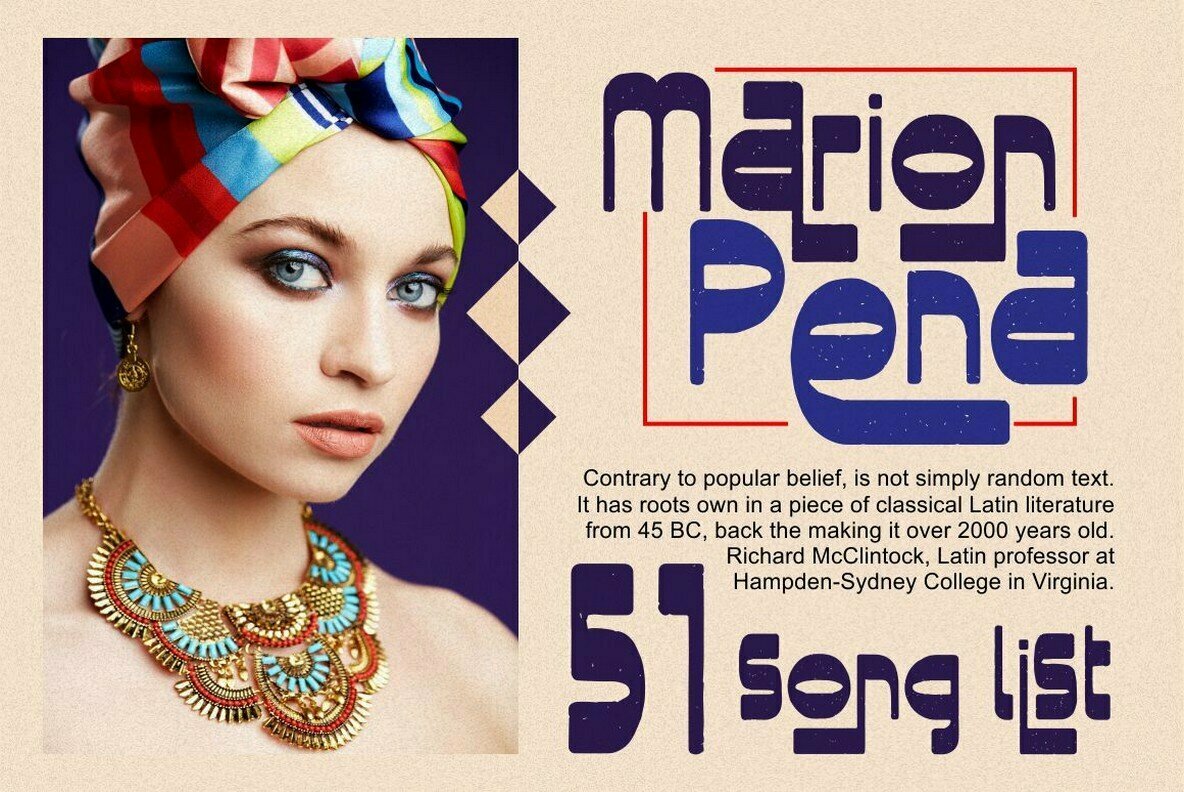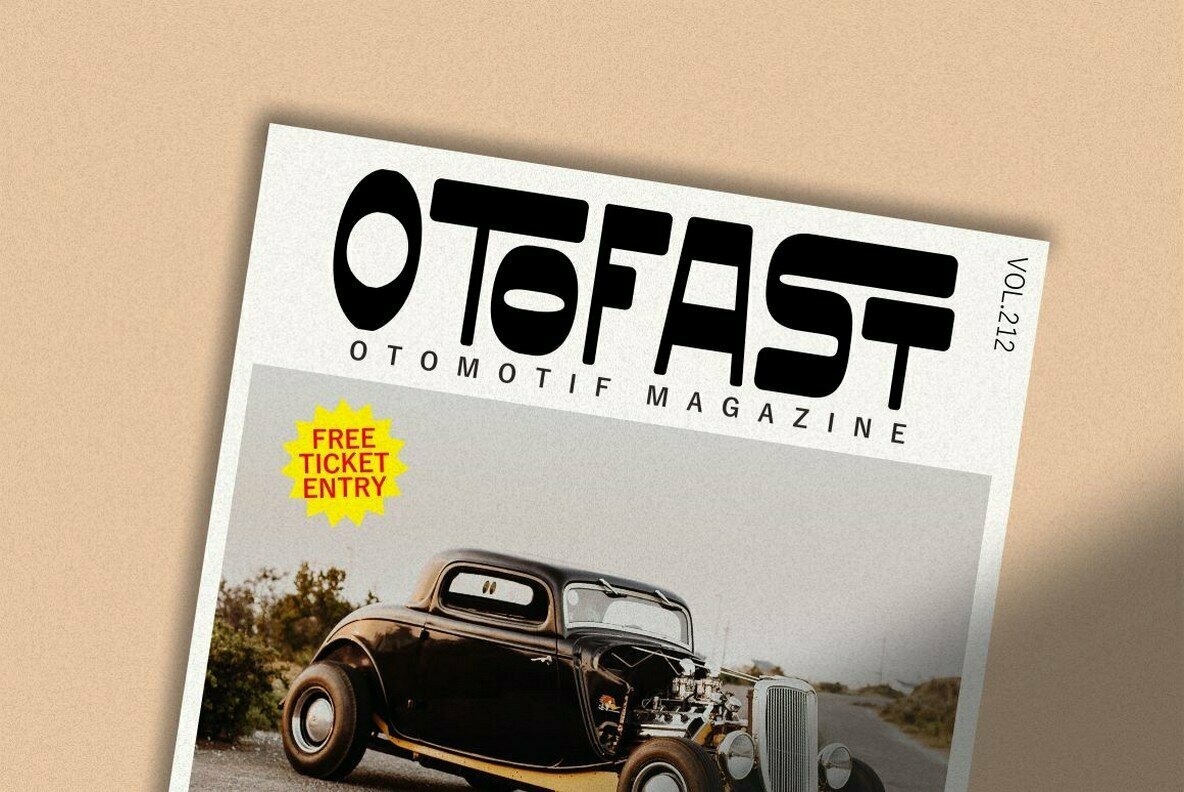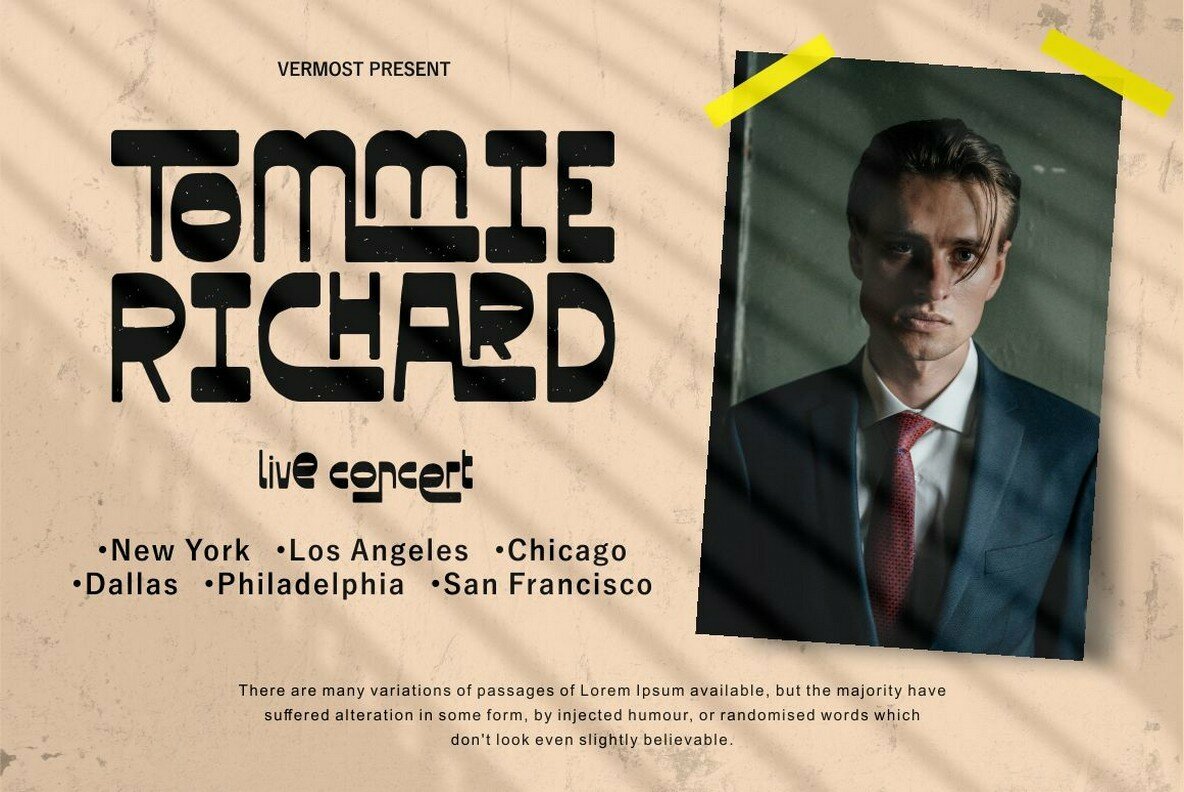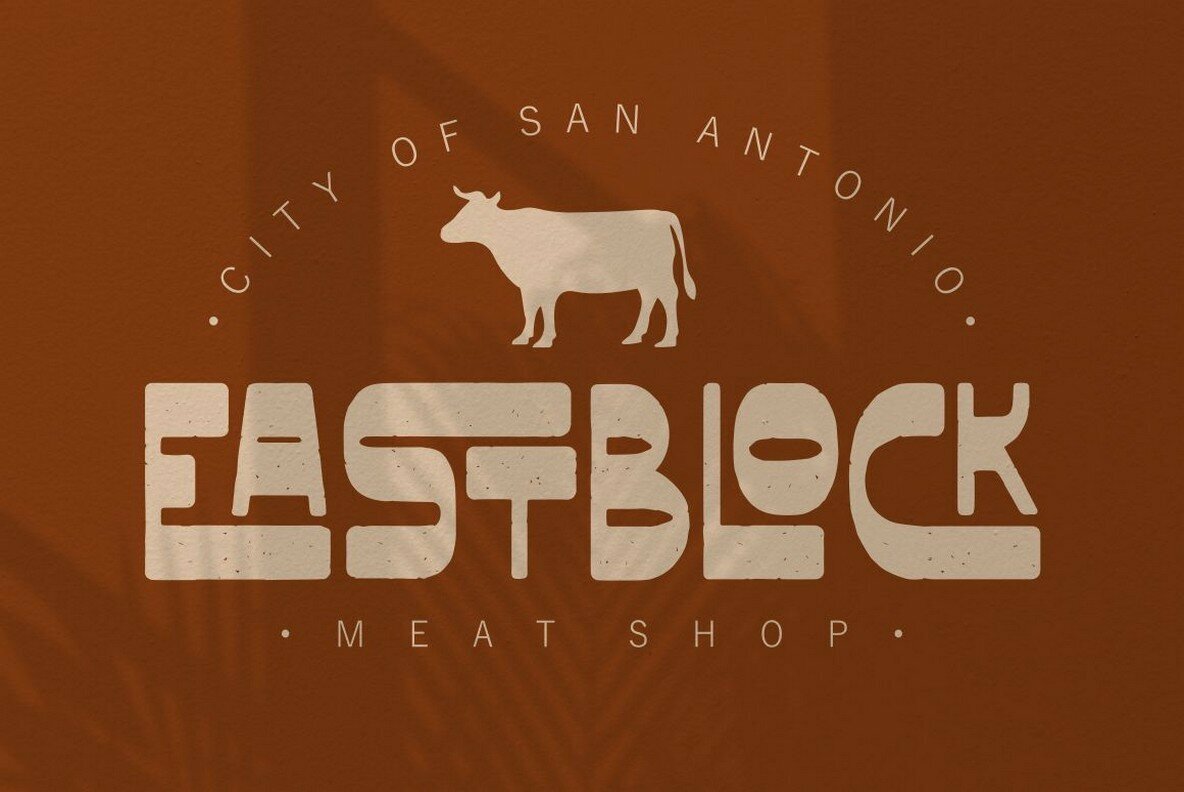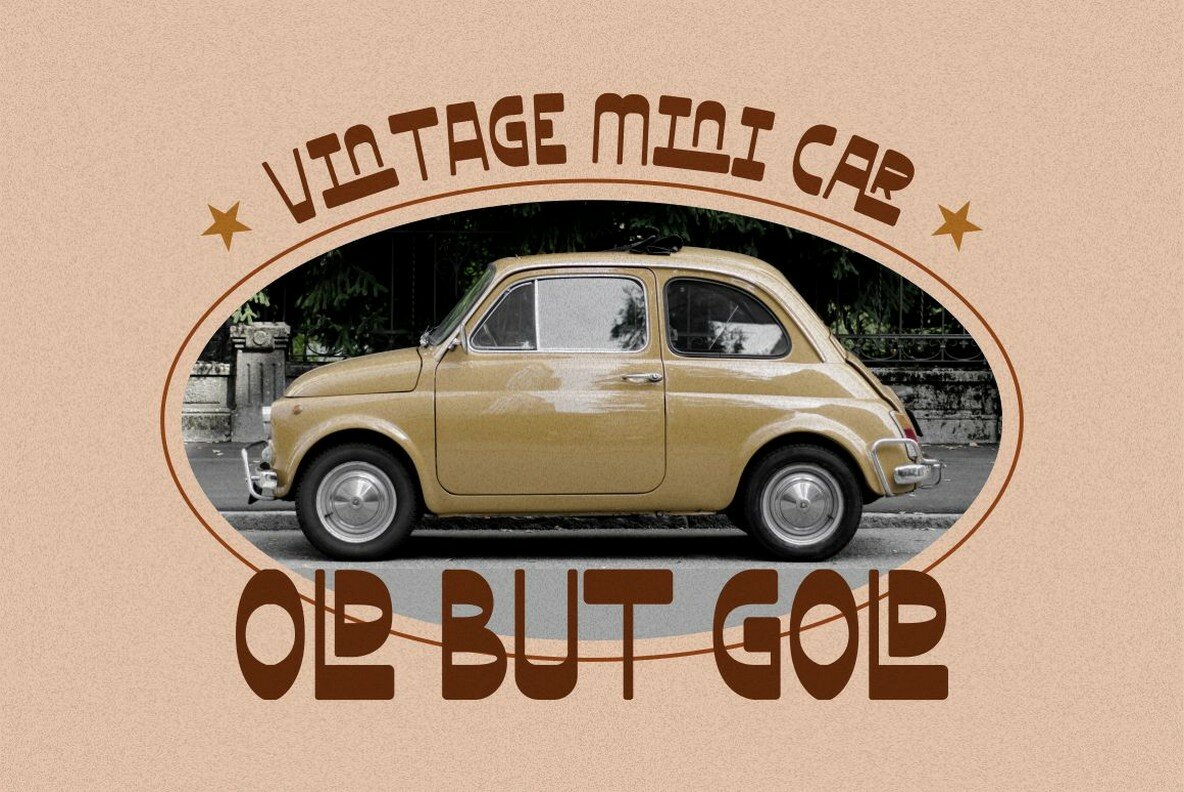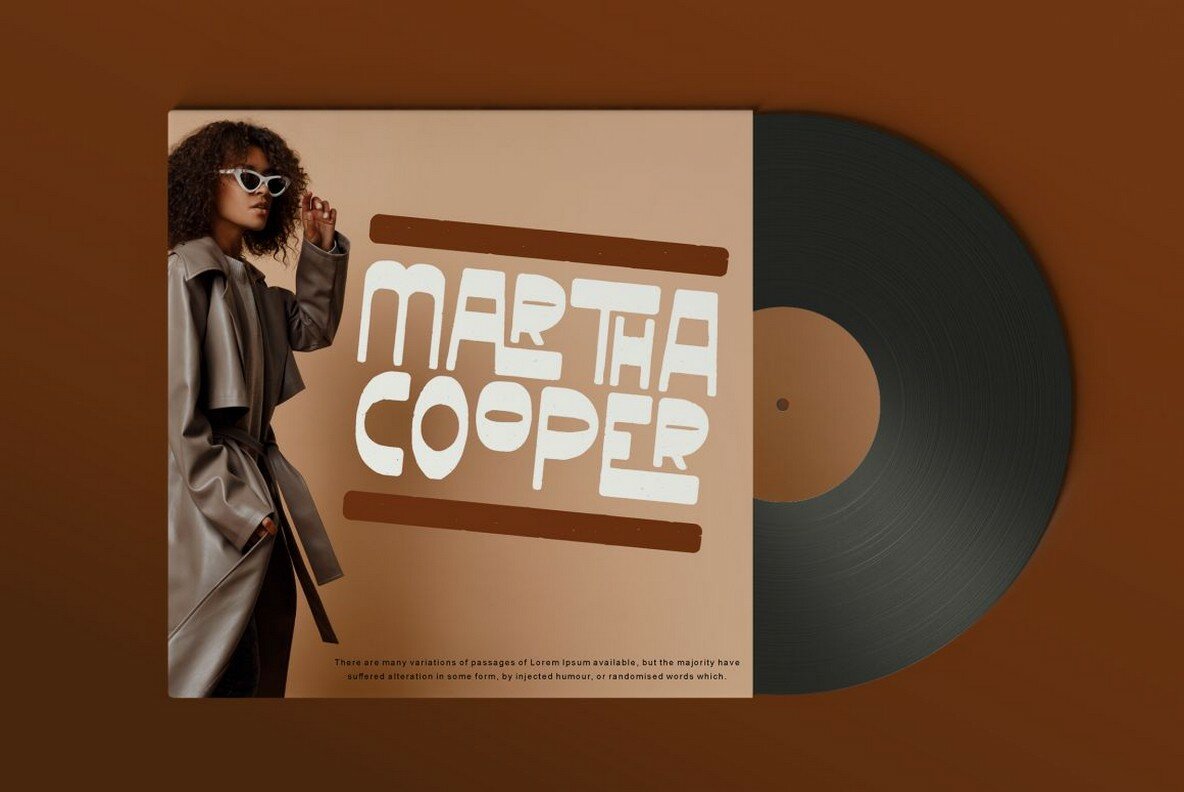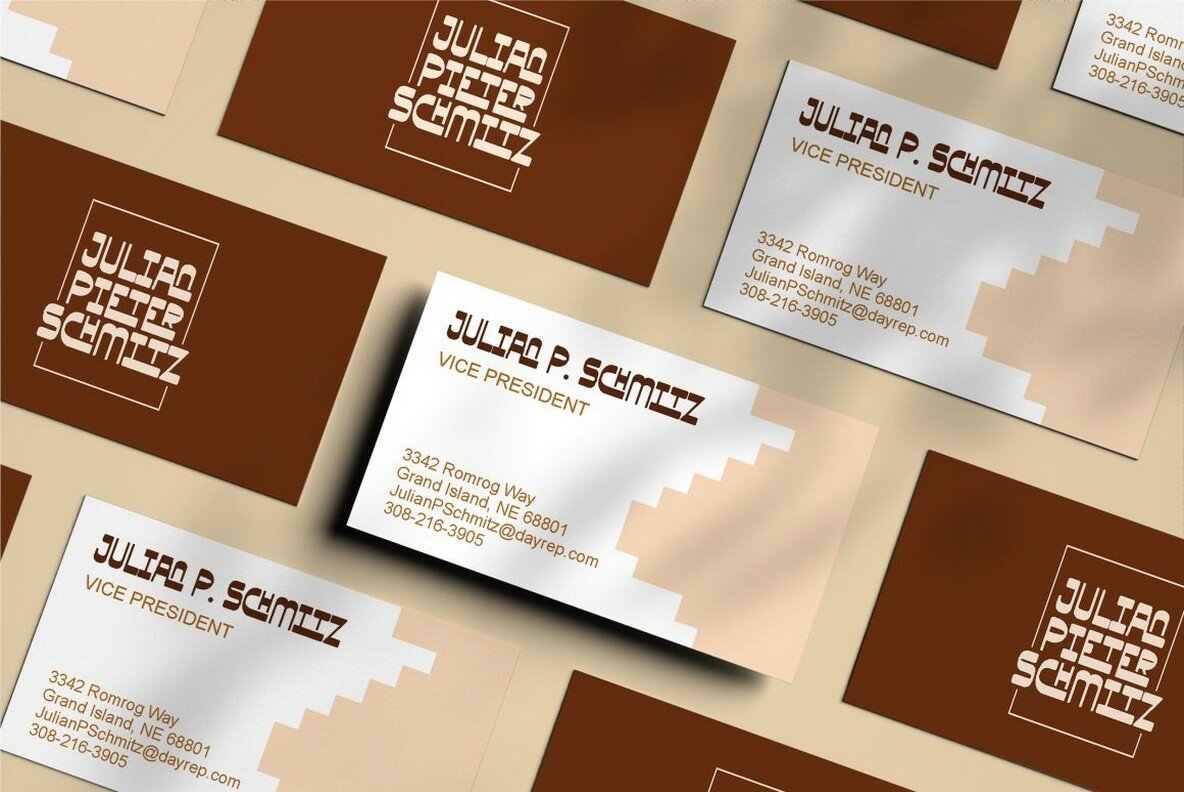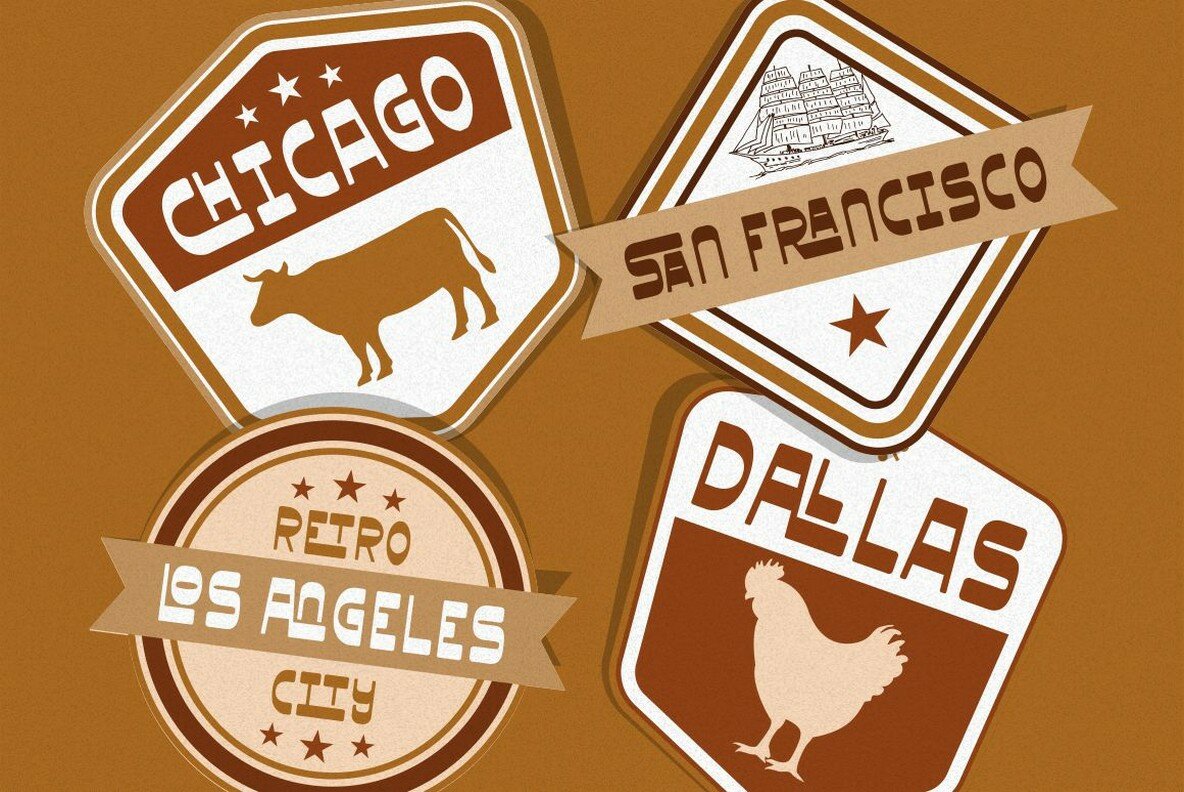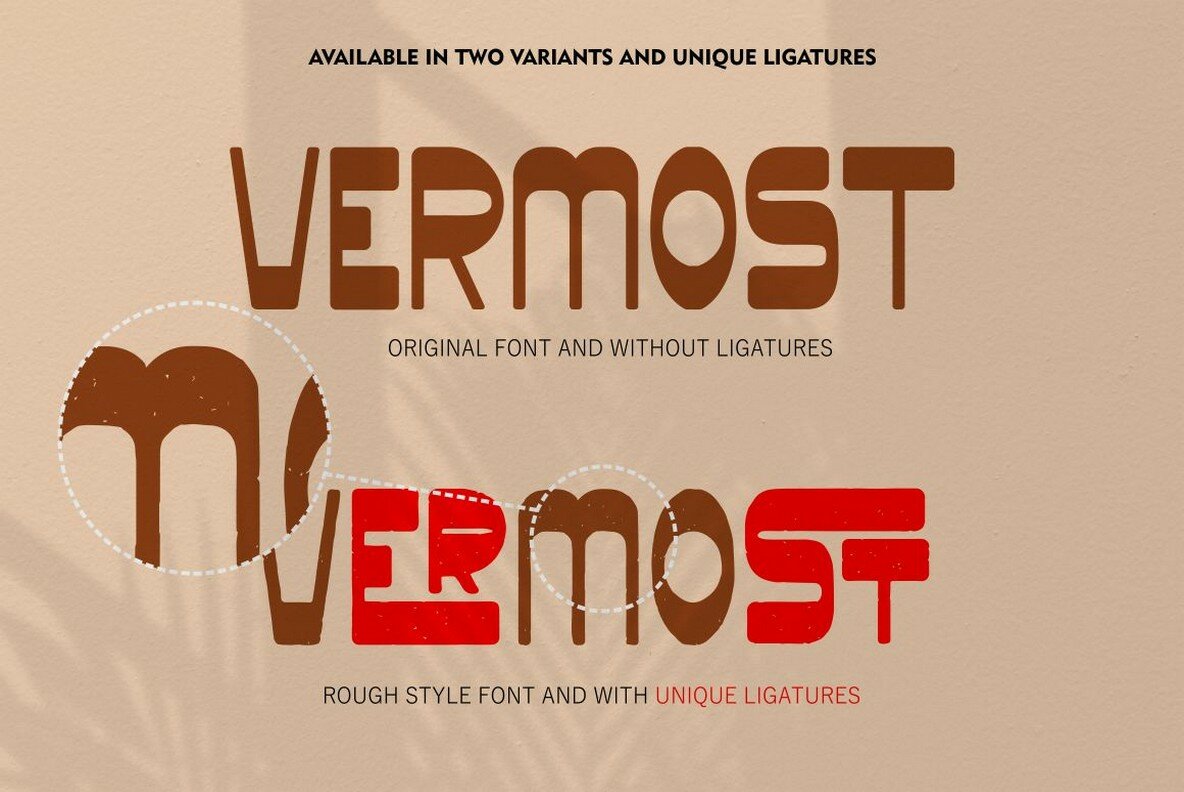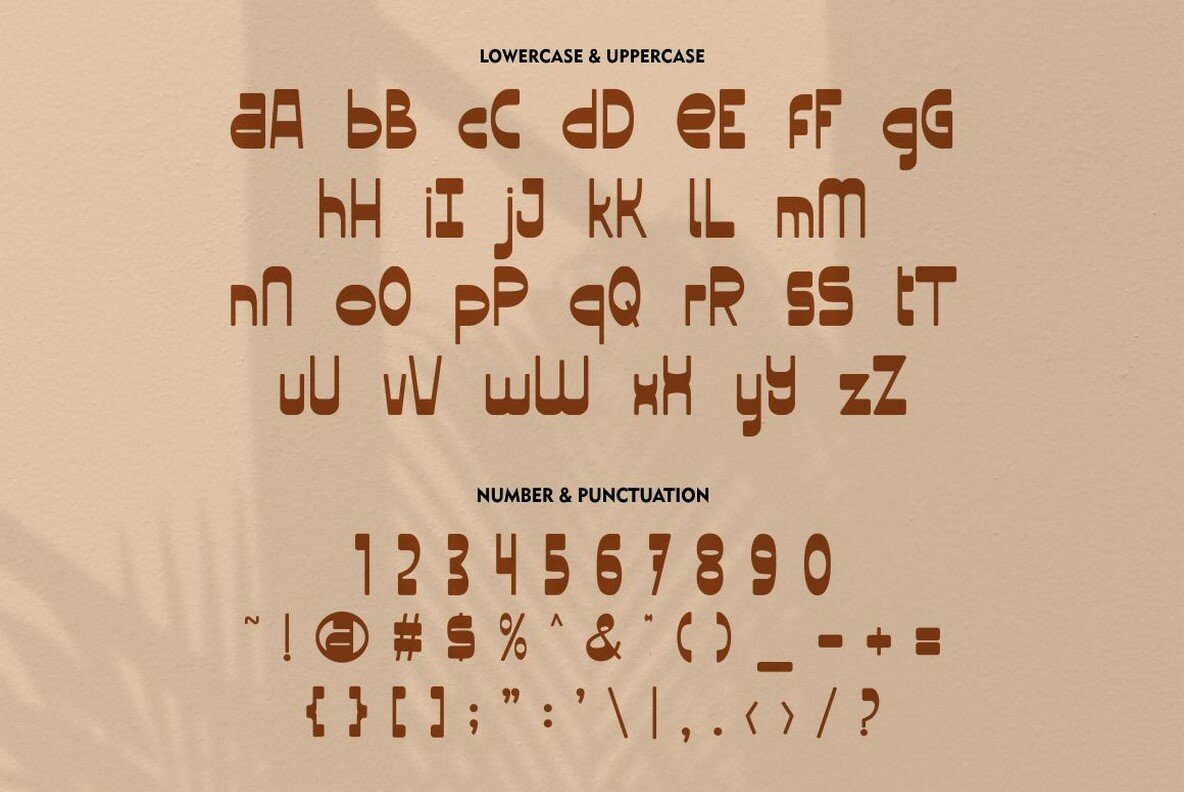
Vermost Font
Vermost is not your average display retro sans serif font. Characterized by its unconventional design, this typeface features a thicker horizontal body contrasted by thinner verticals, creating a visually striking effect. Its classic style, with neat and soft shapes, is enhanced by a rough or textured alternative version. The vintage appeal is further amplified by 88 meticulously crafted ligatures. For a cleaner look, the ligatures can be disabled, offering versatility depending on your project needs. Perfect for projects demanding a vintage or retro vibe, Vermost adapts seamlessly to a variety of applications. It's ideal for logos, branding efforts, eye-catching greeting and invitation cards, advertisements, headlines, book covers, stickers, packaging, memorable quotes, attention-grabbing posters, apparel designs, and large billboards, among others. Vermost supports multiple languages and can be utilized in any program that accommodates OpenType features, such as Adobe Illustrator CS, Adobe Photoshop CC, Adobe Indesign, and Corel Draw.Vermost: A Unique Retro Sans Serif